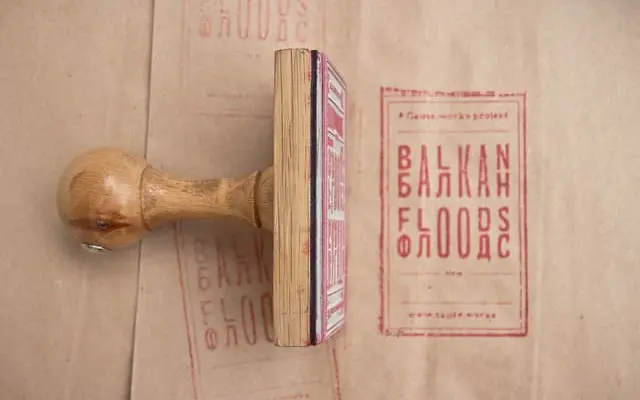
Balkan Sans
A geometric sans system from Typotheque with a companion stencil variant, used across cultural and identity projects in Central and Eastern Europe.
Balkan Sans is structured into four weight grades across two subfamilies: the standard cuts and a stencil variant. Named styles reference cities including Amsterdam, Bengaluru, Copenhagen and Damascus, suggesting broad geographic or cultural reference points. The family has seen use in Croatian design biennials, Soviet-era art exhibition identities and typographic editorial work.
Balkan Sans is a geometric-influenced sans-serif with a stencil variant, used in display and identity contexts across Central and Eastern European cultural projects.